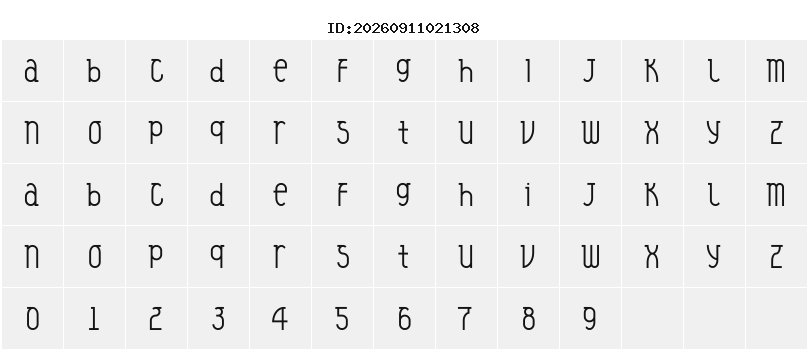
• Font Name: Veysel
• Full Font Name: Veysel
• PostScript Name: Veysel
About Veysel.ttf
Veysel.ttf is a modern, elegant sans-serif font designed for ultimate readability and visual harmony. Perfect for branding, headlines, web design, and print materials.